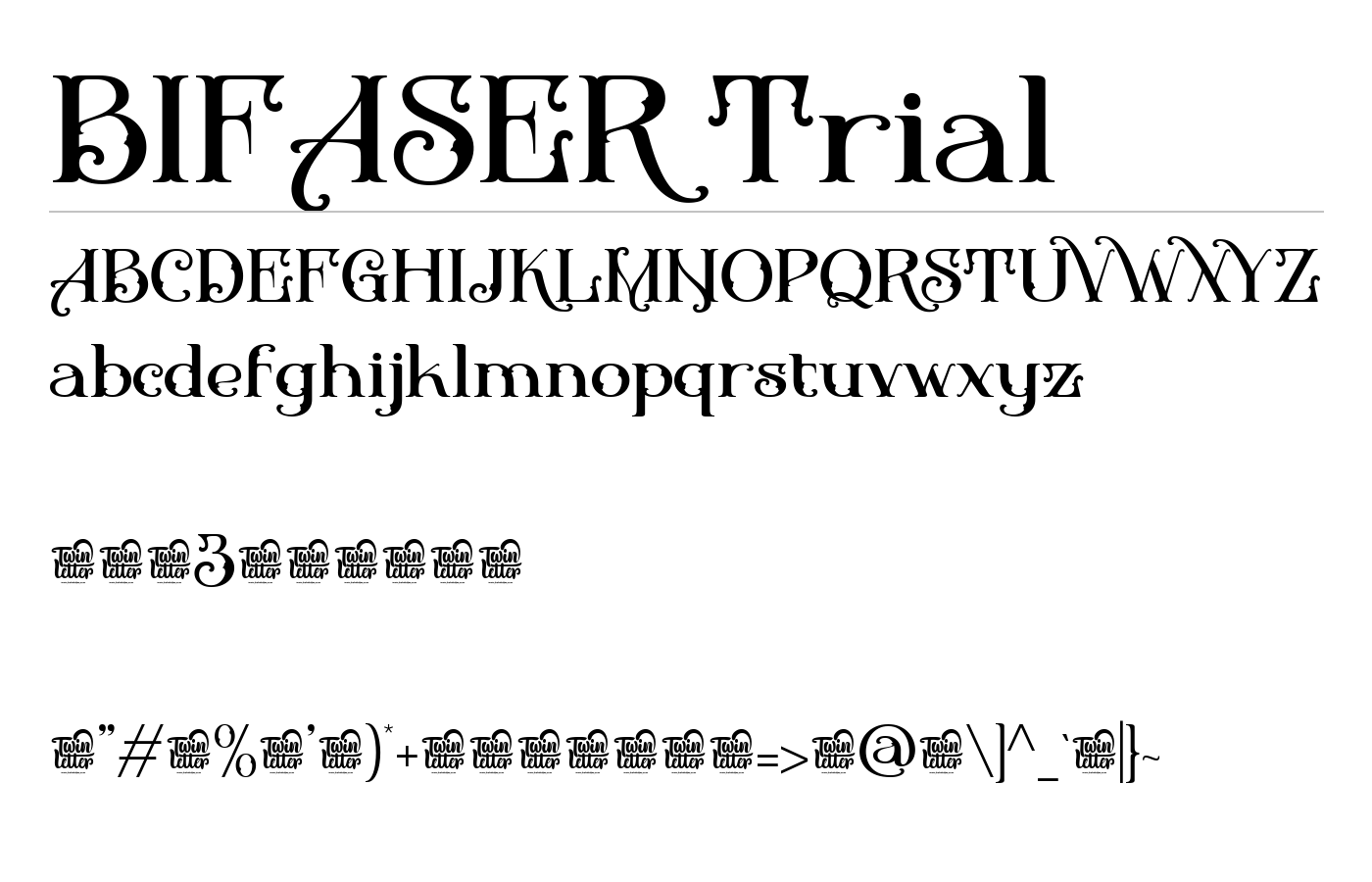
BIFASER Trial is a decorative serif font with a distinctive vintage flair, featuring high contrast strokes and unique, curled terminals that add a playful yet elegant character. Its moderately condensed letterforms and intricate details make it ideal for striking headlines, logos, and branding where a blend of classic charm and artistic flair is desired. This font works best in creative designs that aim to stand out with a touch of sophistication and personality.
BIFASER Trial Font
About BIFASER Trial Font
| Font family | BIFASER Trial Font |
| Designer | Naya |